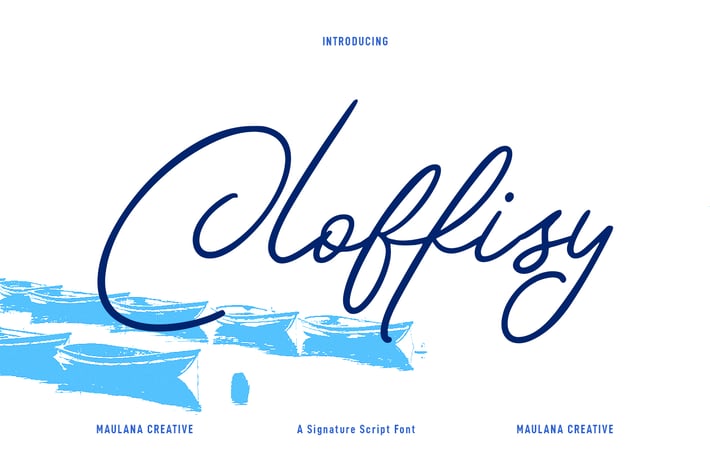
Cloffisy Signature Script Font
Cloffisy is a casual modern script font. With medium low contrast stroke, fun character with a bit of ligatures and alternates. To give you an extra creative work. Cloffisy font support multilingual more than 100+ language. This font is good for logo design, Social media, Movie Titles, Books Titles, a short text even a long text letter and good for your secondary text font with sans or serif. Make a stunning work with Cloffisy font.